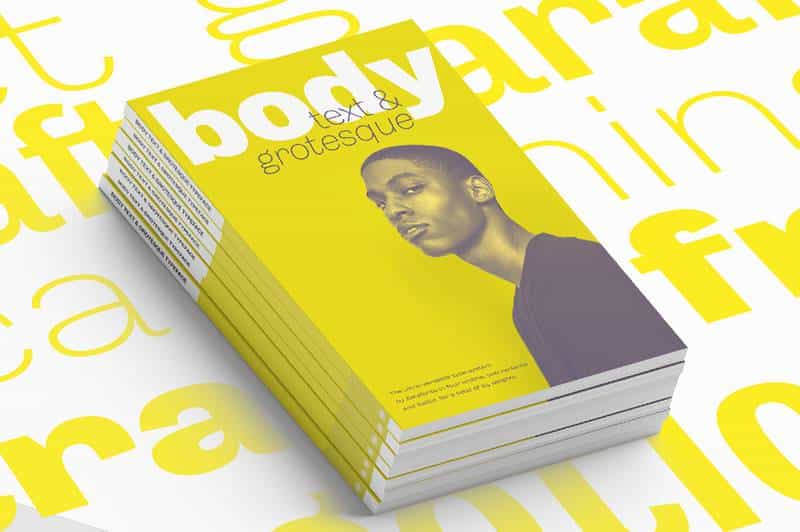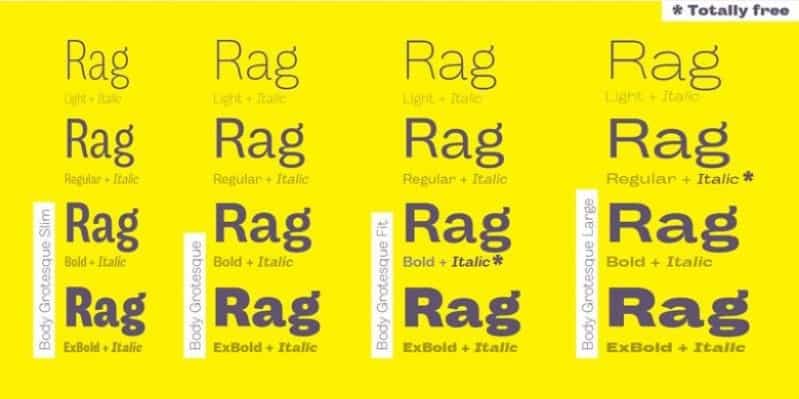
Discover Body Font Family, part of the Sans Serif collection—a versatile and unique font perfect for adding a personal touch to your projects. Download it for free and enjoy crafting designs with style, from invitations to social media posts. This font is available exclusively for personal use, giving you the freedom to create without limits. Unlock your creativity with Body Font Family today!
Hello designer! Introducing to Body, an amazing type family, by Cosimo Lorenzo Pancini and Andrea Tartarelli, with 64 fonts and limited to Bodies Text and Grotesque fonts – an incredible postmodernist superfamily, the alternative to Helvetica or Univers, designed in 2021. That’s what the body is aiming to do, to make the text readable and give designers a lot of alternatives to choose from.